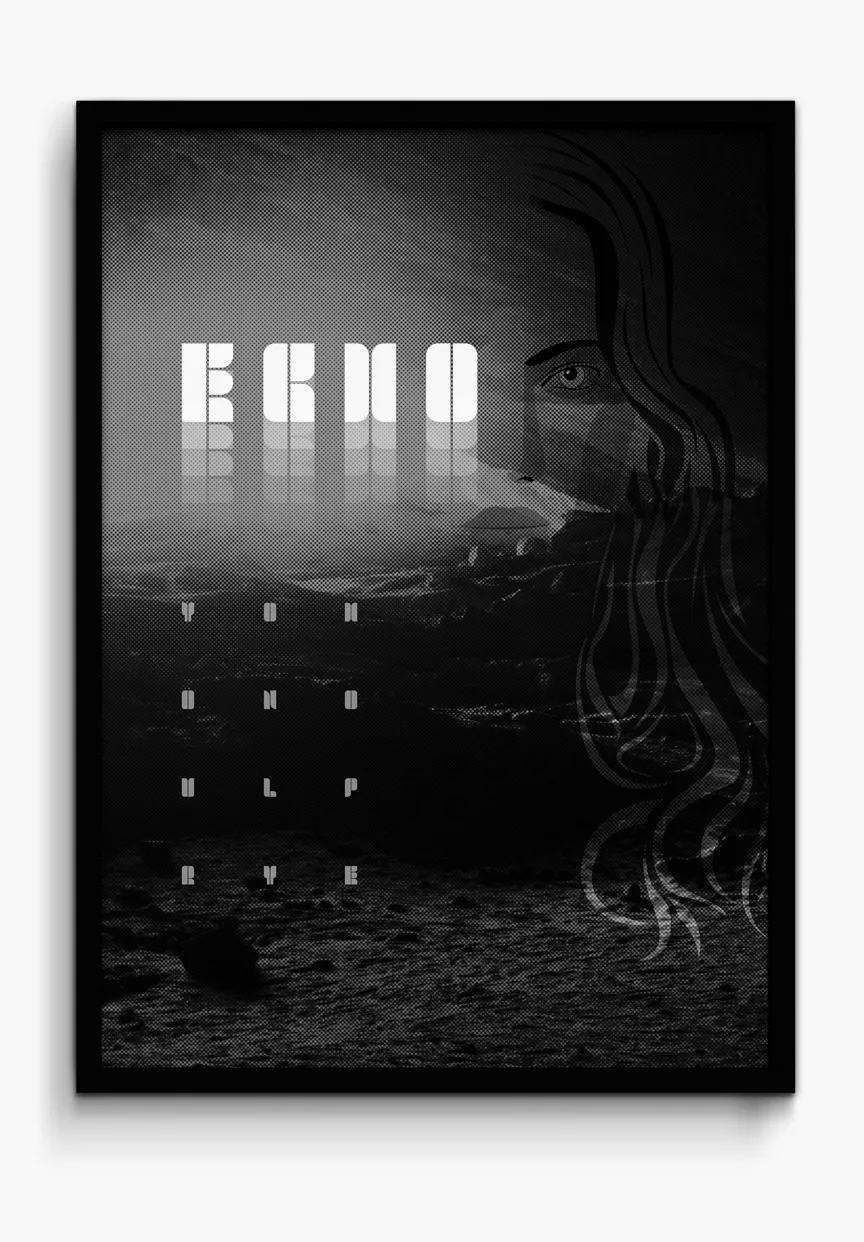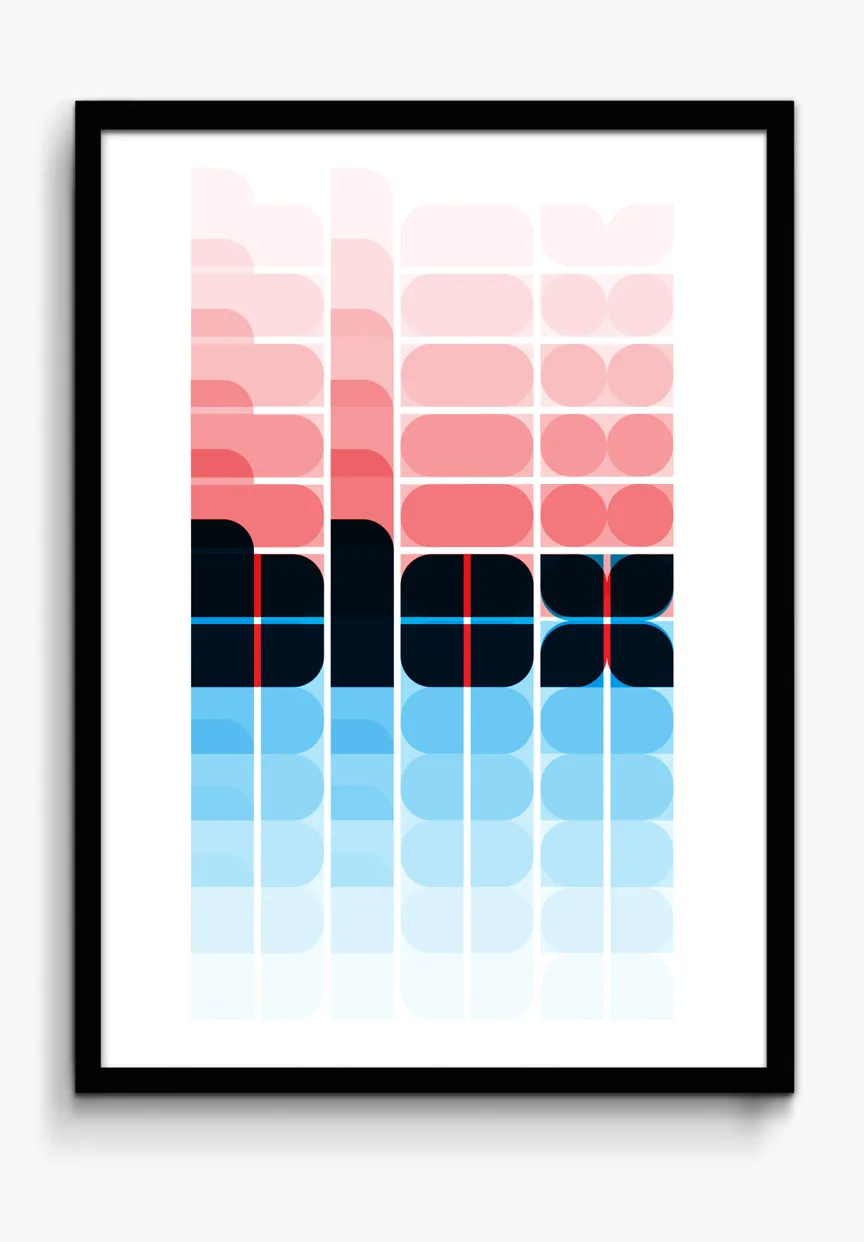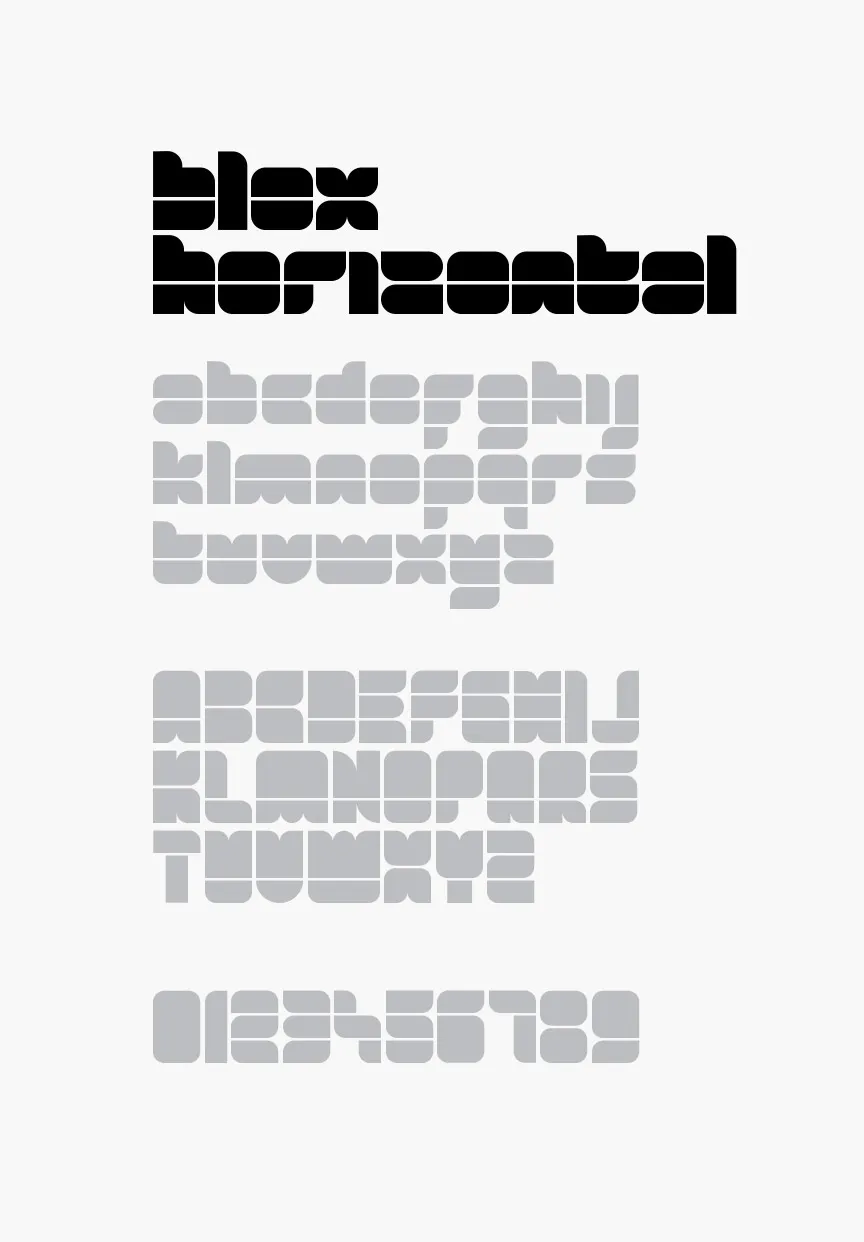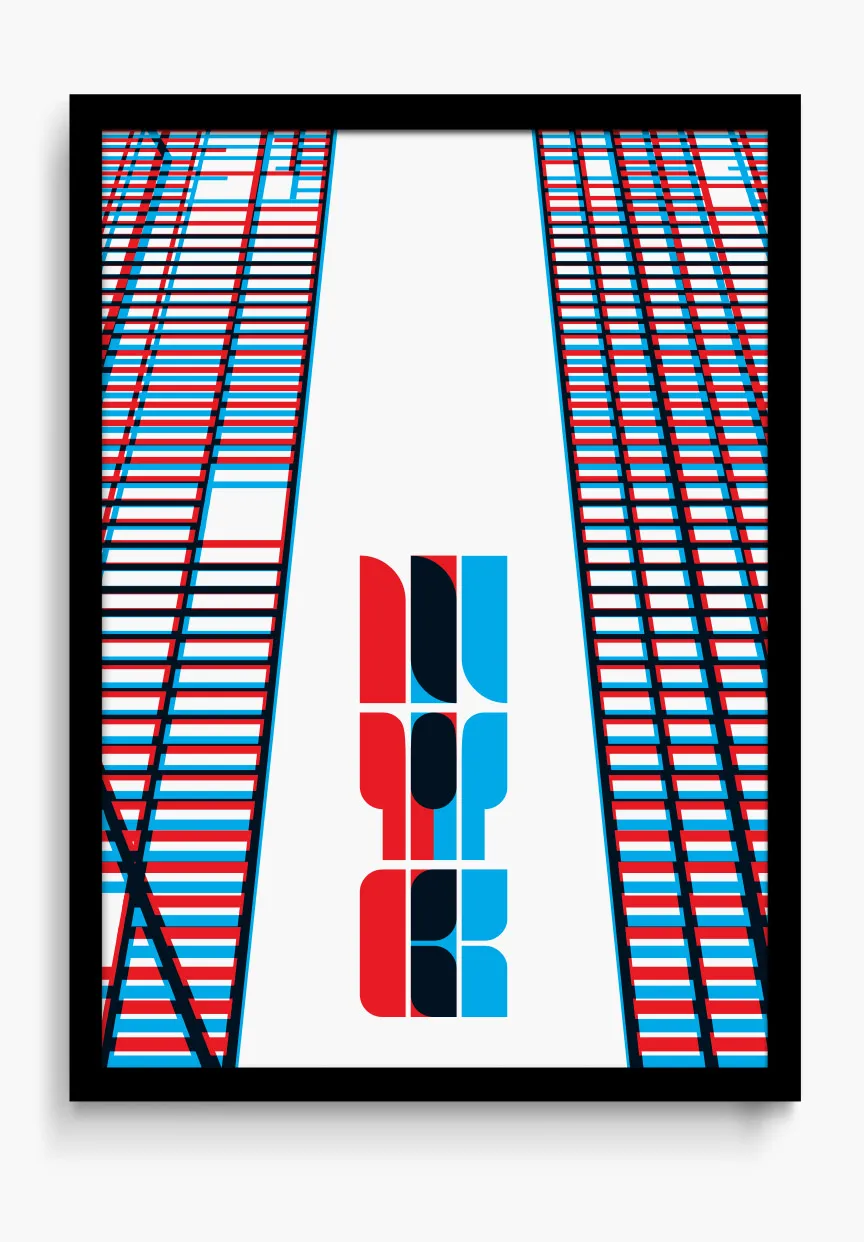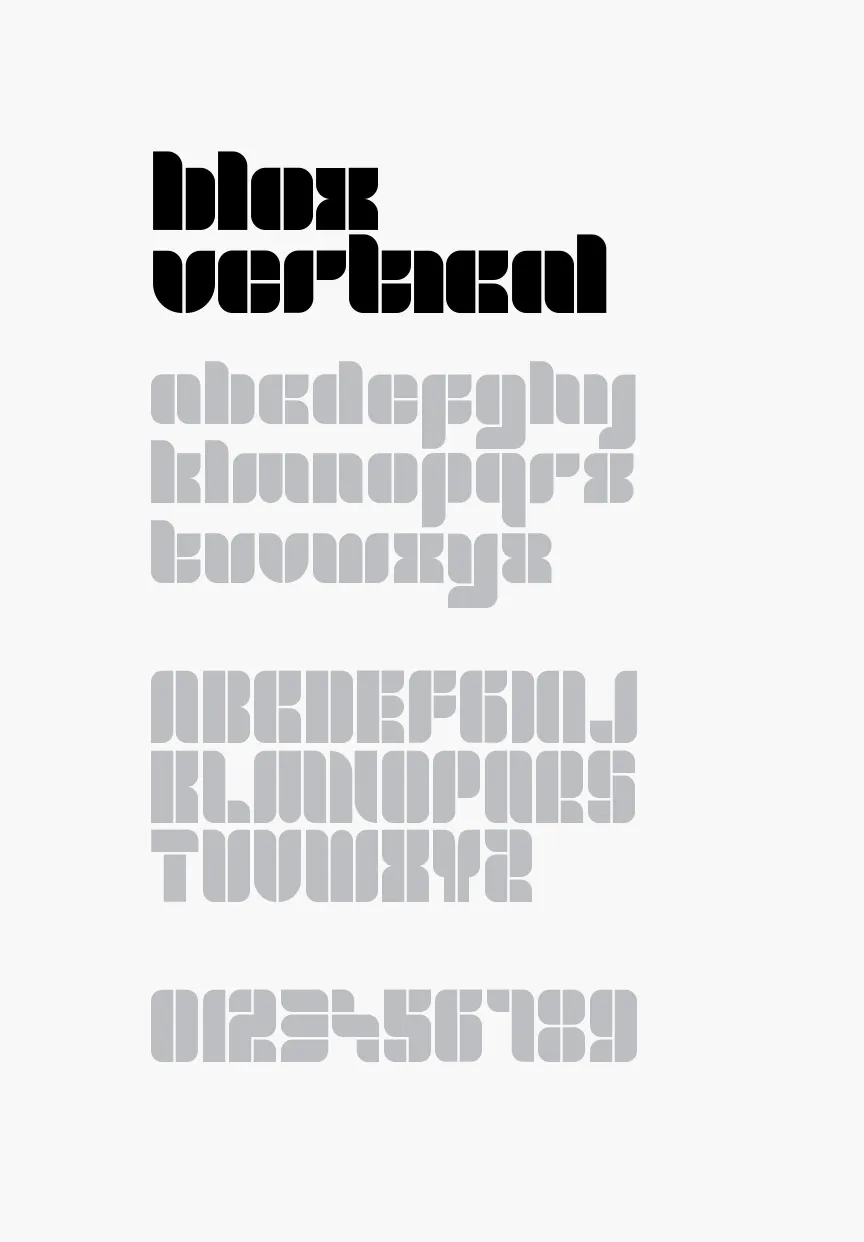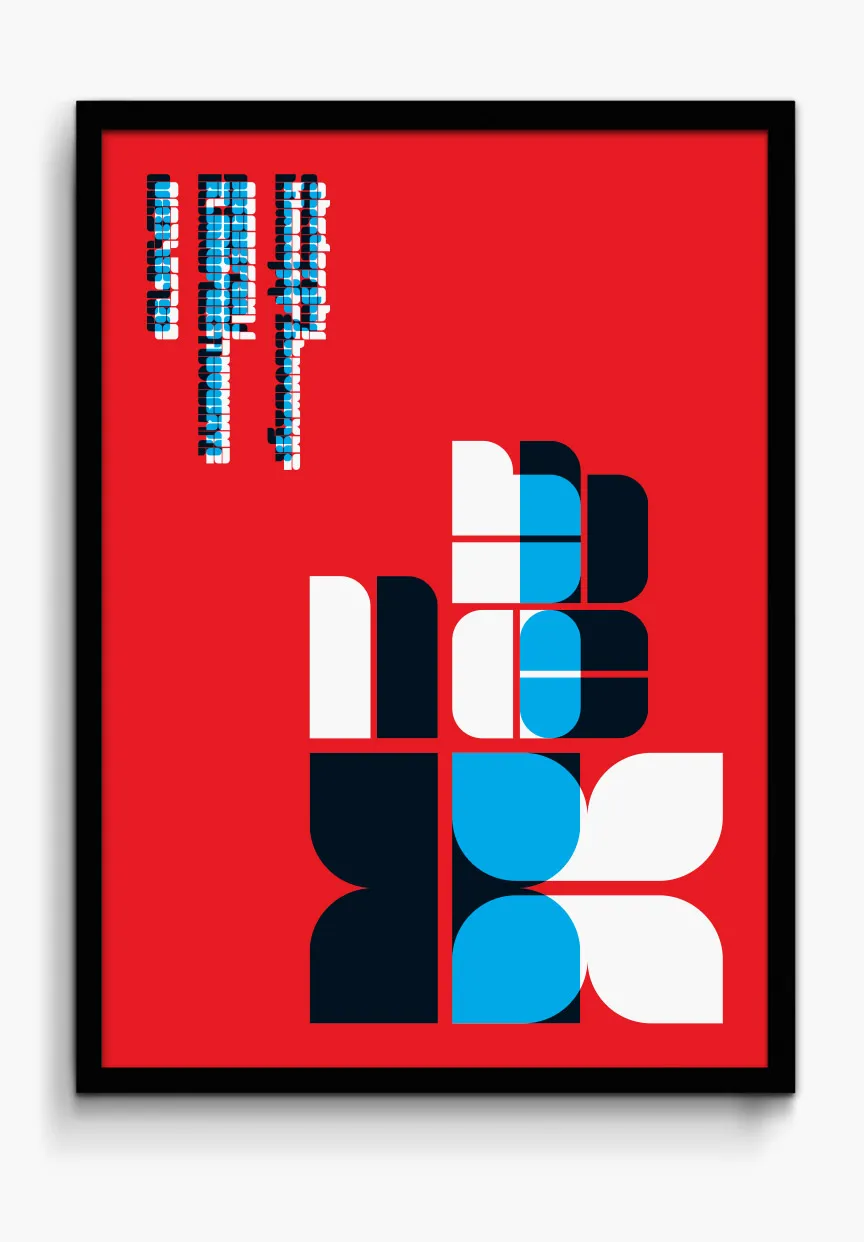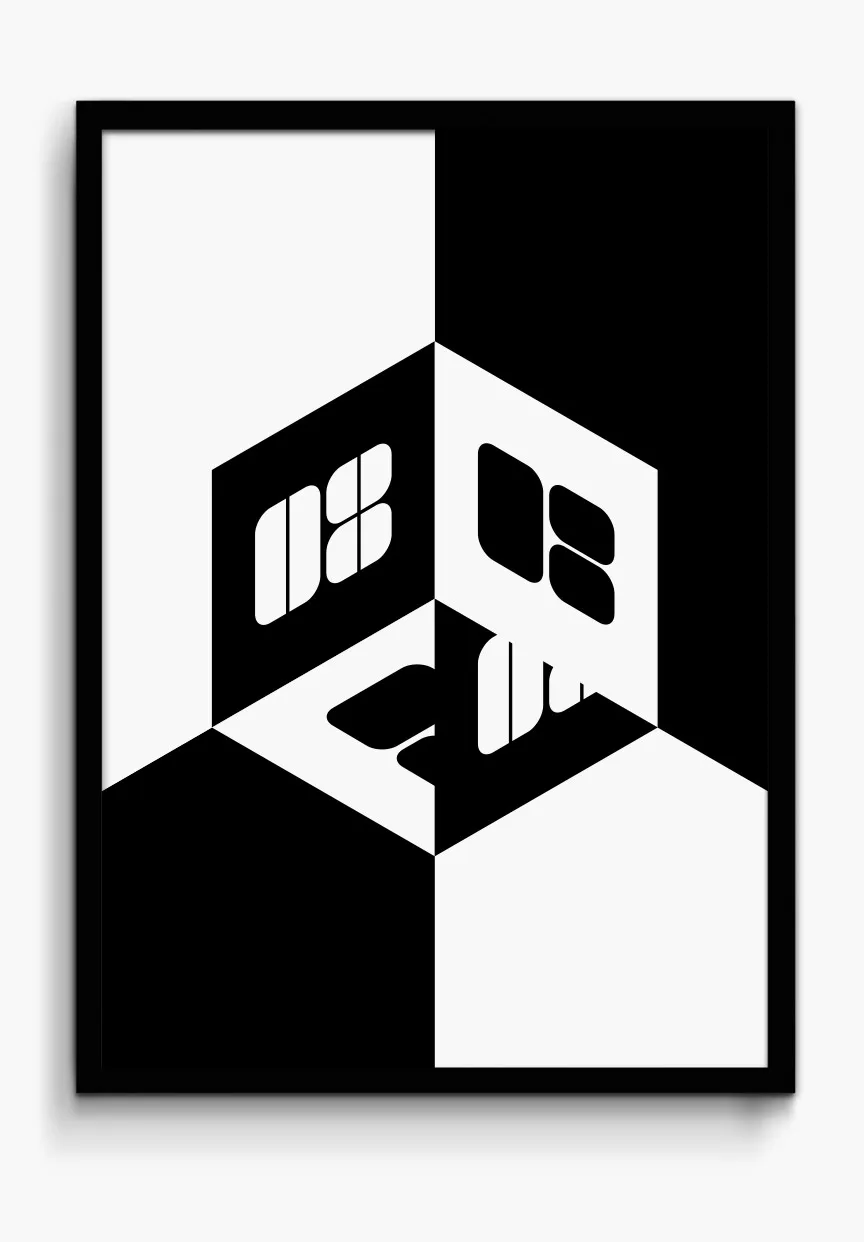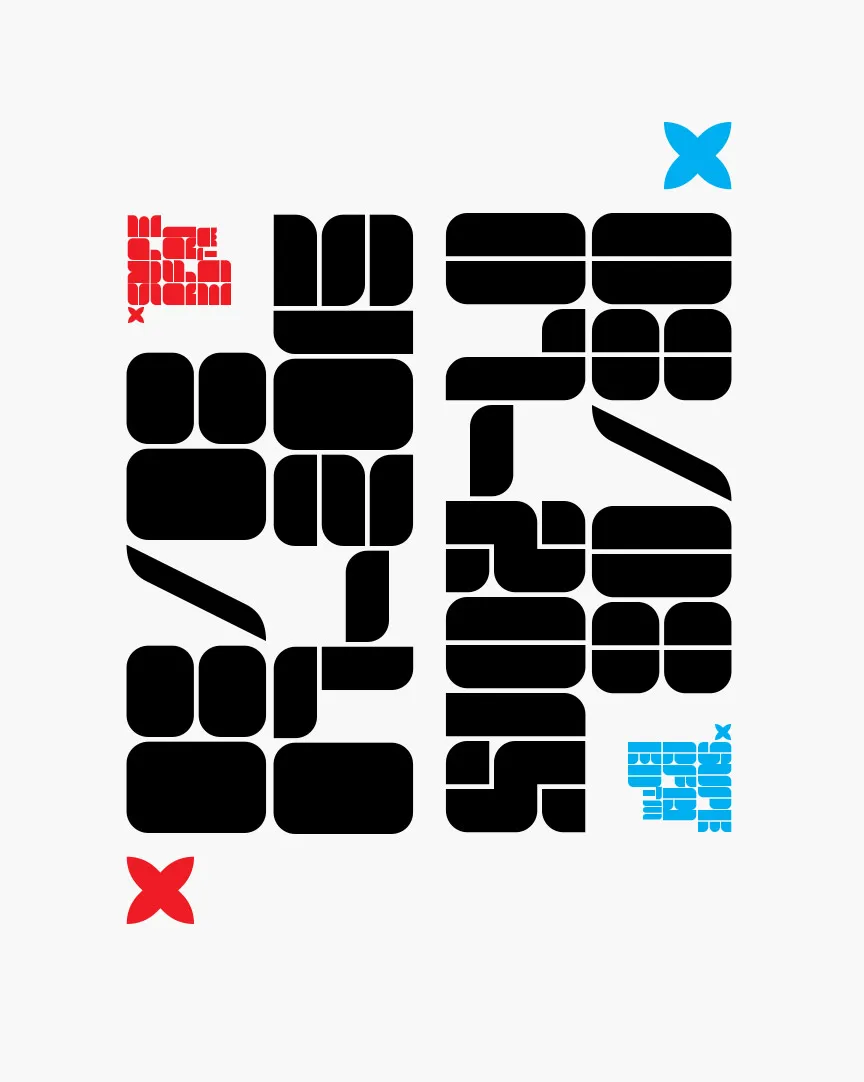
Blox is a bold and retro typeface by London studio Superfried
Graphic design studio Superfried has just released Blox – a bold, retro and experimental display typeface with a simple geometric structure, tight spacing and cuts. Distinct with high impact, it's available in two styles, vertical or horizontal.